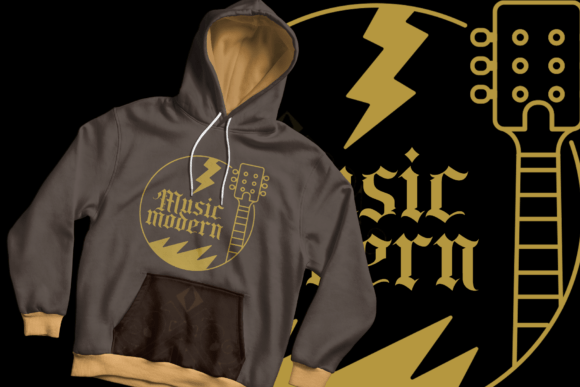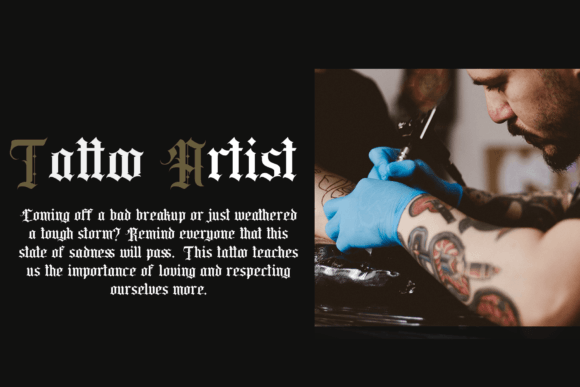
Introducing Classic Rock Band Font: The Ultimate Modern Blackletter Font for Designers and Crafters
Are you a designer or crafter looking for a font that can add a touch of elegance and sophistication to your creative projects? Look no further than the Classic Rock Band font, a modern blackletter font that is perfect for those who want to make a statement. In this article, we’ll take a closer look at this amazing font, its features, and how it can elevate your designs to the next level.
What is Classic Rock Band Font?
Classic Rock Band font is a modern blackletter font that is inspired by the classic rock music of the 70s and 80s. It’s a stylish and versatile font that can be used for a wide range of creative projects, from crafting and scrapbooking to graphic design and digital art. The font features elegant, cursive lines and a distinctive blackletter style that is sure to capture everyone’s attention.
Key Features of Classic Rock Band Font
So, what makes Classic Rock Band font so special? Here are some of its key features:
- Modern Blackletter Style: Classic Rock Band font features a modern blackletter style that is both elegant and sophisticated.
- Perfect for Crafters and Designers: Whether you’re a crafter or designer, Classic Rock Band font is perfect for adding a touch of elegance and sophistication to your creative projects.
- Attention-Grabbing: The font’s distinctive blackletter style is sure to capture everyone’s attention, making it perfect for headlines, titles, and other design elements.
- Crafting and Scrapbooking: Use Classic Rock Band font to add a touch of elegance and sophistication to your scrapbooking and crafting projects.
- Graphic Design: Use the font to create stunning graphic designs, including posters, flyers, and brochures.
- Digital Art: Use the font to add a touch of elegance and sophistication to your digital art projects.
- Sign Making: Use the font to create stunning signs and banners for events, businesses, and more.
Benefits of Using Classic Rock Band Font
So, why should you choose Classic Rock Band font for your creative projects? Here are some benefits of using the font:
- Unique and Eye-Catching: The font’s distinctive blackletter style is sure to capture everyone’s attention, making it perfect for headlines, titles, and other design elements.
- Versatile: Classic Rock Band font can be used for a wide range of creative projects, from crafting and scrapbooking to graphic design and digital art.
- Elegant and Sophisticated: The font features elegant, cursive lines and a distinctive blackletter style that is sure to add a touch of elegance and sophistication to your creative projects.
In conclusion, Classic Rock Band font is a modern blackletter font that is perfect for designers and crafters alike. Its elegant and sophisticated style, combined with its versatility and ease of use, make it a great addition to any font library. Whether you’re looking to add a touch of elegance and sophistication to your crafting and scrapbooking projects, or create stunning graphic designs and digital art, Classic Rock Band font is the perfect choice. So why wait? Download Classic Rock Band font today and start creating stunning designs that capture everyone’s attention!
Overall, Classic Rock Band font is a great choice for anyone looking for a unique and eye-catching font that can add a touch of elegance and sophistication to their creative projects. With its modern blackletter style, compatibility with popular design tools, and ease of use, it’s a font that’s sure to become a staple in any designer’s or crafter’s font library.